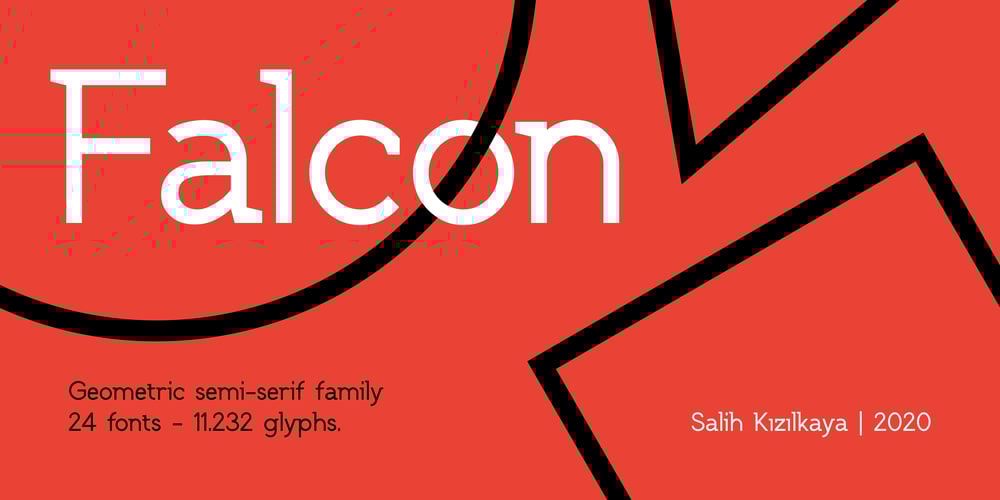
SK Falcon Font Family was designed by Salih Kizilkaya and published by Salih Kizilkaya. SK Falcon contains 23 styles and family package options. SK Falcon is a geometric semi-serif font. Inspired by the anatomy of mechanical structures, it was designed by Salih Kızılkaya in 2020 in accordance with modern design needs. SK Falcon contains 24 fonts and a total of 11,232 glyphs. Offers full support for Latin letters.